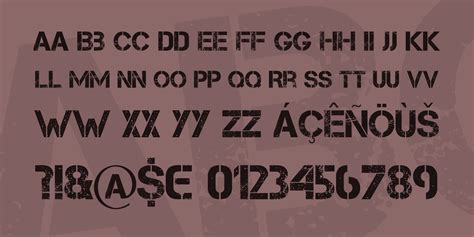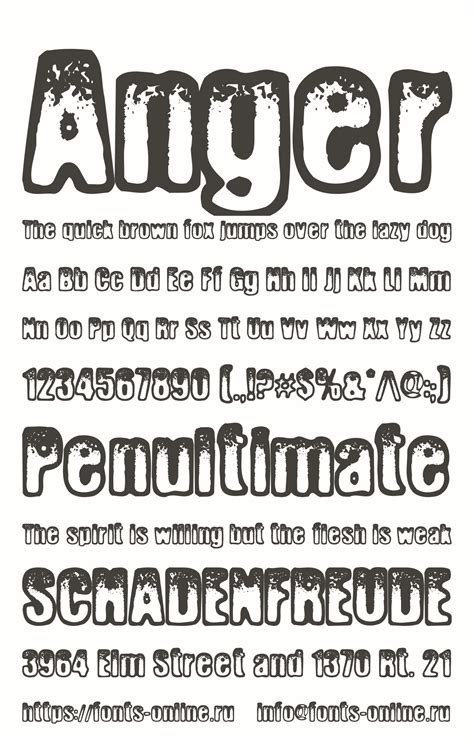
In the world of graphic design and typography, the choice of font can significantly impact the emotional tone of a message. While many fonts are designed to evoke feelings of calm, elegance, or playfulness, there are also Fonts That Capture Anger. These fonts can be used to convey strong emotions, create dramatic effects, or emphasize important points. Understanding how to use these fonts effectively can enhance the impact of your designs and communications.
Understanding the Psychology of Angry Fonts
Fonts that capture anger often have sharp, jagged edges, irregular shapes, and a sense of chaos. These characteristics are designed to evoke feelings of tension, urgency, and intensity. The psychology behind these fonts is rooted in the idea that the visual elements can trigger emotional responses in the viewer. For example, a font with jagged edges might make the viewer feel uneasy or anxious, while a font with bold, heavy strokes can convey a sense of power and aggression.
Characteristics of Fonts That Capture Anger
When selecting a font to capture anger, there are several key characteristics to look for:
- Sharp Edges: Fonts with sharp, jagged edges can create a sense of tension and unease.
- Irregular Shapes: Fonts with irregular or distorted shapes can convey a sense of chaos and unpredictability.
- Bold Strokes: Heavy, bold strokes can emphasize power and intensity.
- Distorted Letters: Letters that are stretched, compressed, or otherwise distorted can add to the overall sense of anger and aggression.
These characteristics work together to create a visual language that can effectively communicate strong emotions. However, it's important to use these fonts judiciously, as they can be overwhelming if overused.
Popular Fonts That Capture Anger
There are several fonts that are commonly used to capture anger and intensity. Here are a few notable examples:
| Font Name | Description | Use Cases |
| Impact | A bold, heavy font with sharp edges, often used for headlines and impactful statements. | Posters, headlines, and attention-grabbing text. |
| Stencil | A font with a military or industrial feel, often used to convey strength and authority. | Military-themed designs, industrial graphics, and warning signs. |
| Audiowide | A bold, retro font with a sense of urgency and intensity. | Retro designs, music-related graphics, and attention-grabbing headlines. |
| Bebas Neue | A modern, bold font with clean lines and a strong presence. | Modern designs, branding, and impactful statements. |
These fonts are just a few examples of the many options available for capturing anger and intensity in your designs. Each font has its unique characteristics and use cases, so it's important to choose the one that best fits your specific needs.
💡 Note: When selecting a font, consider the overall tone and message of your design. A font that captures anger might not be appropriate for all contexts, so choose wisely.
Using Fonts That Capture Anger Effectively
To use fonts that capture anger effectively, consider the following tips:
- Context Matters: Ensure that the font fits the context of your design. For example, a font with sharp edges might be appropriate for a warning sign but not for a children's book.
- Balance with Other Elements: Use these fonts sparingly and balance them with other design elements to avoid overwhelming the viewer.
- Pair with Complementary Fonts: Pair an angry font with a more neutral or calming font to create contrast and balance.
- Adjust Size and Weight: Experiment with different sizes and weights to find the right balance between intensity and readability.
By following these tips, you can effectively use fonts that capture anger to enhance the emotional impact of your designs.
Case Studies: Fonts That Capture Anger in Action
To better understand how fonts that capture anger can be used effectively, let's look at a few case studies:
Poster Design for a Protest Event
For a poster design promoting a protest event, the designer chose a bold, jagged font to convey a sense of urgency and intensity. The font was paired with a neutral background and complementary text to ensure readability and balance. The result was a powerful, attention-grabbing design that effectively communicated the message of the event.
Warning Signs for a Construction Site
In a construction site, warning signs need to be clear and impactful to ensure safety. The designer chose a font with sharp edges and bold strokes to convey a sense of danger and urgency. The font was used sparingly, with plenty of white space to ensure readability and clarity. The result was a set of warning signs that effectively communicated the importance of safety on the site.
Music Album Cover
For a music album cover, the designer wanted to convey a sense of raw emotion and intensity. They chose a retro font with a sense of urgency and paired it with bold, contrasting colors. The result was a striking album cover that captured the essence of the music and drew attention to the artist's work.